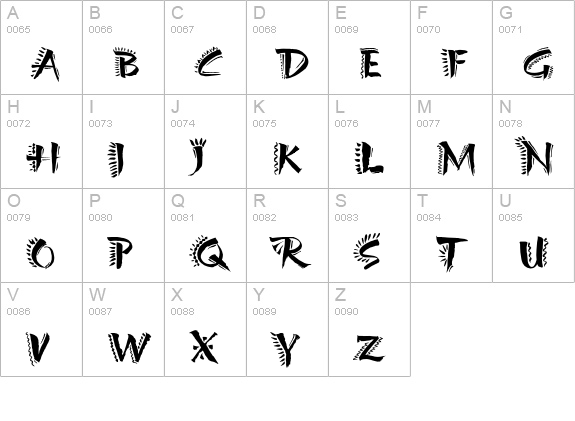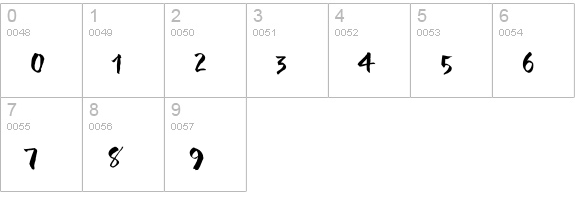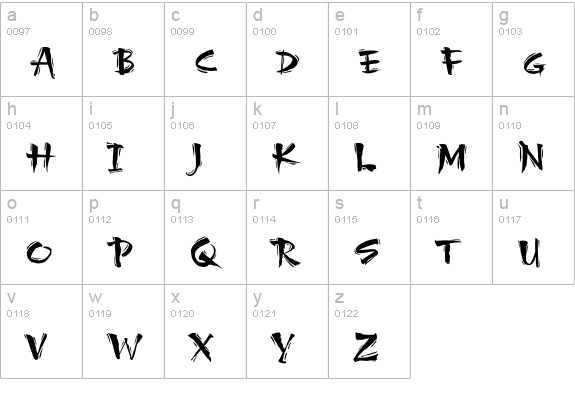
Carumba Hot Caps Plain Font Details
Carumba Hot Caps Plain font is a bold and eye-catching typeface that exudes a sense of energy and dynamism. Its sharp edges and clean lines make it perfect for creating striking headlines and attention-grabbing designs. The font's versatility allows it to be used in a variety of design projects, from posters to logos to social media graphics. What's even better is that Carumba Hot Caps Plain font is available for free download at FontsMarket.com! This means you can easily add this stylish font to your collection without having to spend a dime. Don't miss out on the opportunity to enhance your designs with the bold and expressive Carumba Hot Caps Plain font - download it for free today!